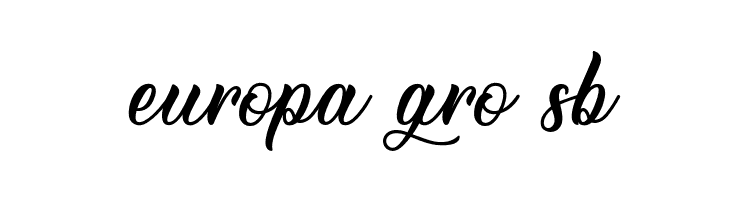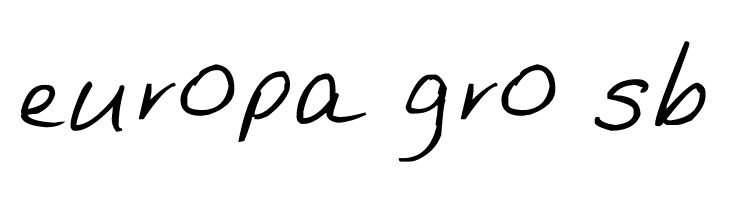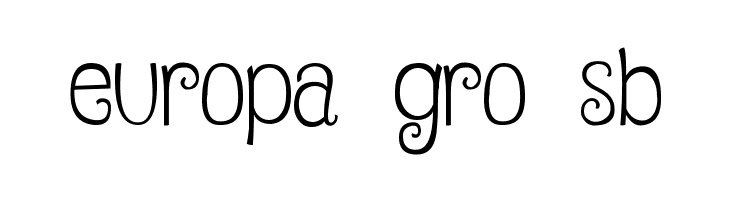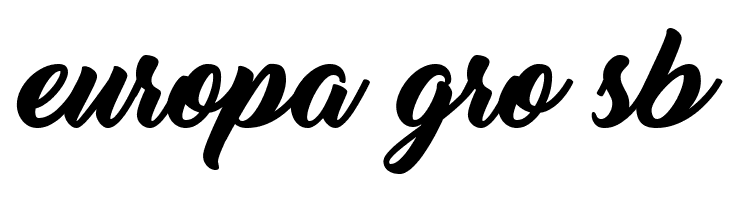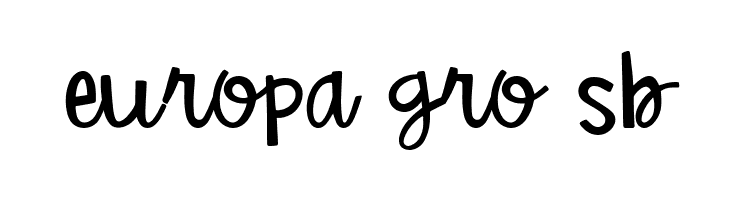
( Fonts by Eric Wohnig )
A casual, handwritten font with fluid, slightly irregular strokes.
A playful, whimsical font with decorative curls and a handwritten feel.
( GroovyJournal - www.groovyjournal.com )
A playful, handwritten font with bold, dynamic characters.
( London's Letters - www.londonsletters.com/ )
A decorative font with comic-style character illustrations integrated into each letter and number.
A playful and elegant script font with bold strokes and high contrast.
A bold, expressive script font with a handwritten, cursive style.
An elegant script font with ornate swirls and decorative flourishes.